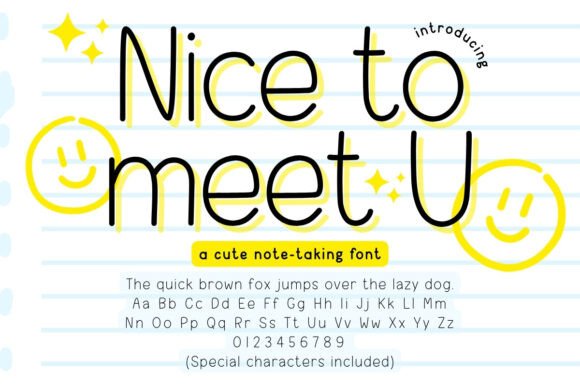
Nice to Meet U Font: Add a Cheerful Touch to Your Designs
In the world of digital design, fonts play a crucial role in conveying the tone and personality of a project. Whether you’re a student, crafter, or digital enthusiast, finding the right font can make all the difference. If you’re looking for a fun and cute handwriting font to make your school notes, digital planners, and creative projects stand out, look no further than Nice to Meet U.
Nice to Meet U is a charming and playful font designed to add a cheerful touch to your designs. Its neat and organized style makes it perfect for students, crafters, and digital enthusiasts who want to add a personal touch to their work. In this article, we’ll explore the features and benefits of Nice to Meet U and how it can elevate your designs.
What Makes Nice to Meet U Special?
Nice to Meet U is a handwriting font that boasts a unique and playful style. Its features include:
- Playful and cheerful design: Nice to Meet U is designed to add a fun and cheerful touch to your designs. Its playful style makes it perfect for creative projects, school notes, and digital planners.
- Neat and organized: Unlike other handwriting fonts, Nice to Meet U is neat and organized, making it easy to read and understand.
- Versatile: Nice to Meet U is a versatile font that can be used in various design projects, including school notes, digital planners, and creative projects.
How to Use Nice to Meet U
Nice to Meet U is a versatile font that can be used in various design projects. Here are some use cases:
- School Notes: Add a cheerful touch to your school notes with Nice to Meet U. Its playful style makes it perfect for headings, titles, and emphasis.
- Digital Planners: Create beautiful and functional digital planners with Nice to Meet U. Its neat and organized style makes it easy to read and understand.
- Creative Projects: Add a personal touch to your creative projects with Nice to Meet U. Its playful style makes it perfect for crafts, illustrations, and designs.
- GoodNotes: Use Nice to Meet U in GoodNotes to create beautiful and interactive digital planners.
- Canva and Procreate: Use Nice to Meet U in Canva and Procreate to add a cheerful touch to your designs and projects.
Benefits of Using Nice to Meet U
Using Nice to Meet U offers several benefits, including:
- Unique and playful style: Nice to Meet U adds a unique and playful touch to your designs, making them stand out from the crowd.
- Easy to read and understand: Nice to Meet U is neat and organized, making it easy to read and understand.
- Versatile: Nice to Meet U can be used in various design projects, making it a great addition to your font collection.
- Perfect for students and crafters: Nice to Meet U is perfect for students and crafters who want to add a personal touch to their work.
Tips and Tricks for Using Nice to Meet U
Here are some tips and tricks for using Nice to Meet U:
- Use it for headings and titles: Nice to Meet U is perfect for headings and titles. Use it to add a cheerful touch to your designs.
- Mix it with other fonts: Mix Nice to Meet U with other fonts to create a unique and interesting design.
- Experiment with colors: Experiment with different colors to add a pop of color to your designs.
- Use it for emphasis: Use Nice to Meet U for emphasis to draw attention to important information.
In conclusion, Nice to Meet U is a fun and cute handwriting font that can add a cheerful touch to your designs. Its playful and neat style makes it perfect for students, crafters, and digital enthusiasts who want to add a personal touch to their work. With its versatility and unique style, Nice to Meet U is a great addition to any font collection.